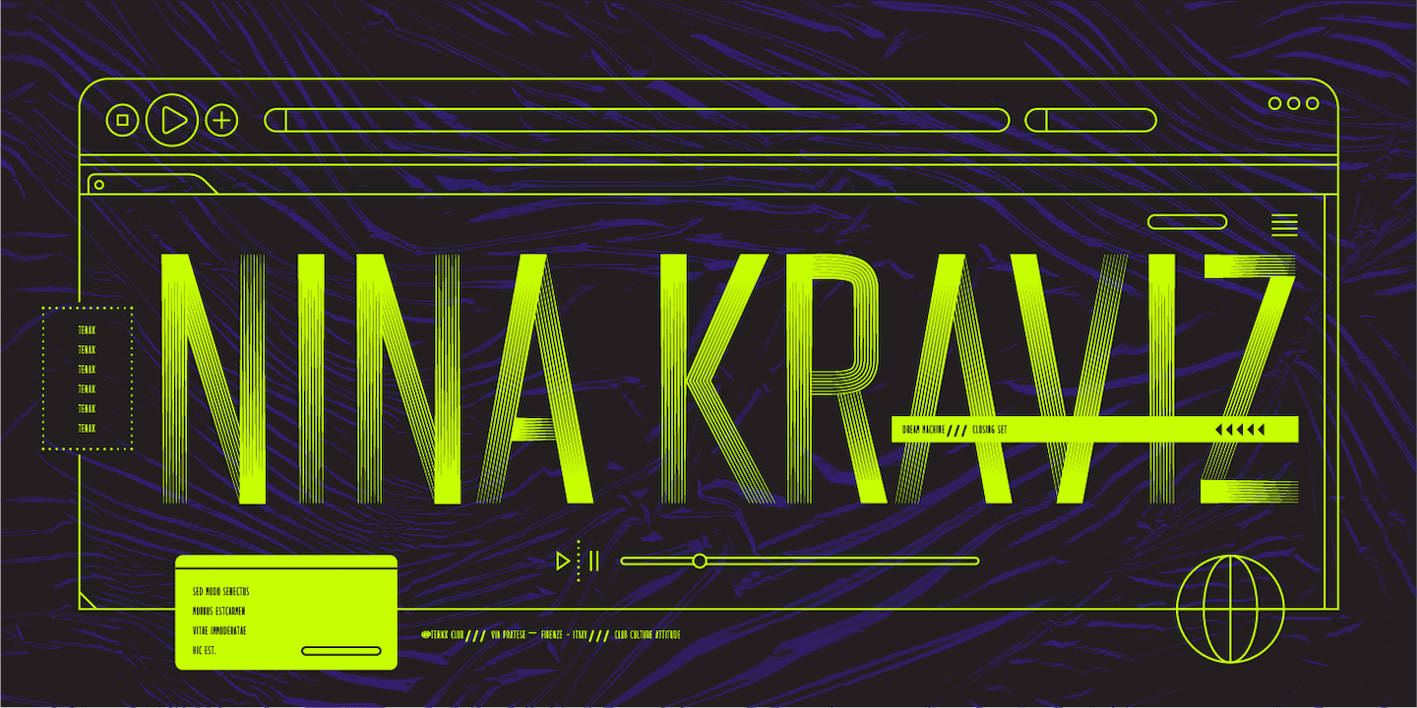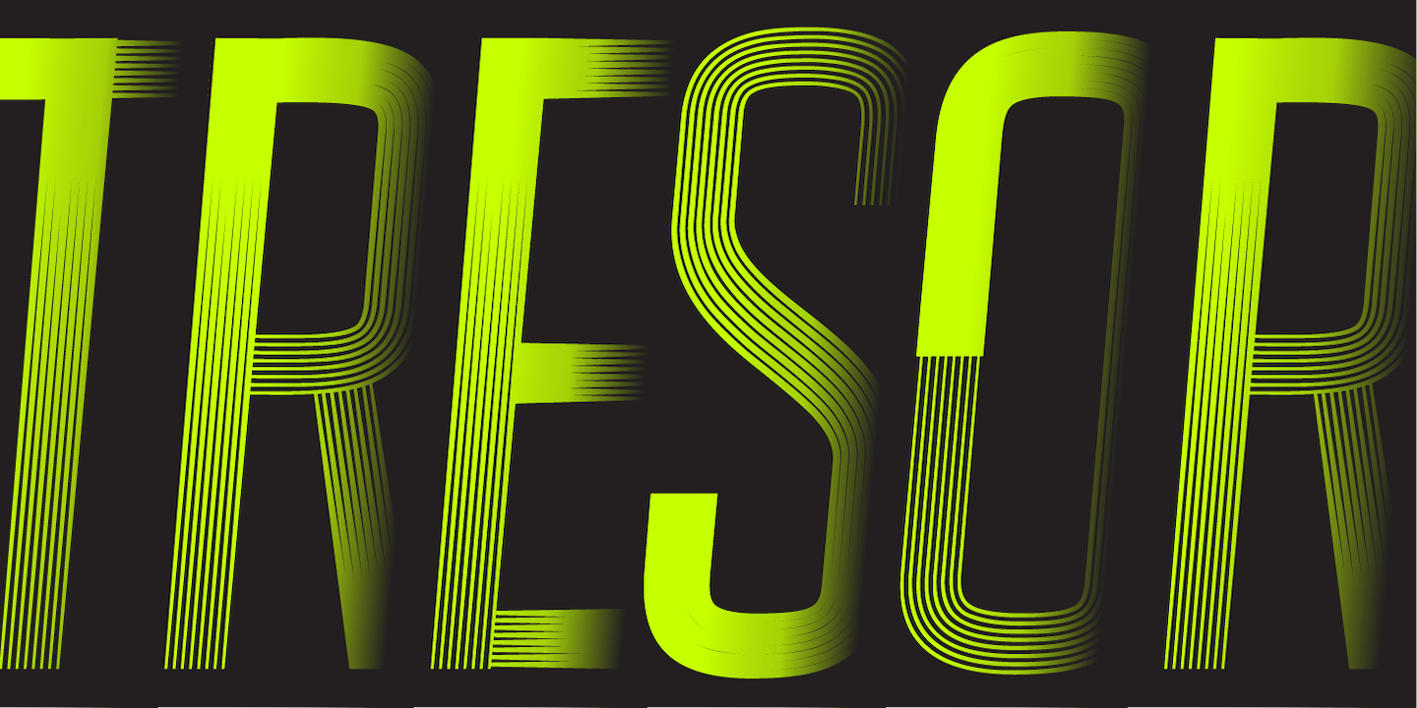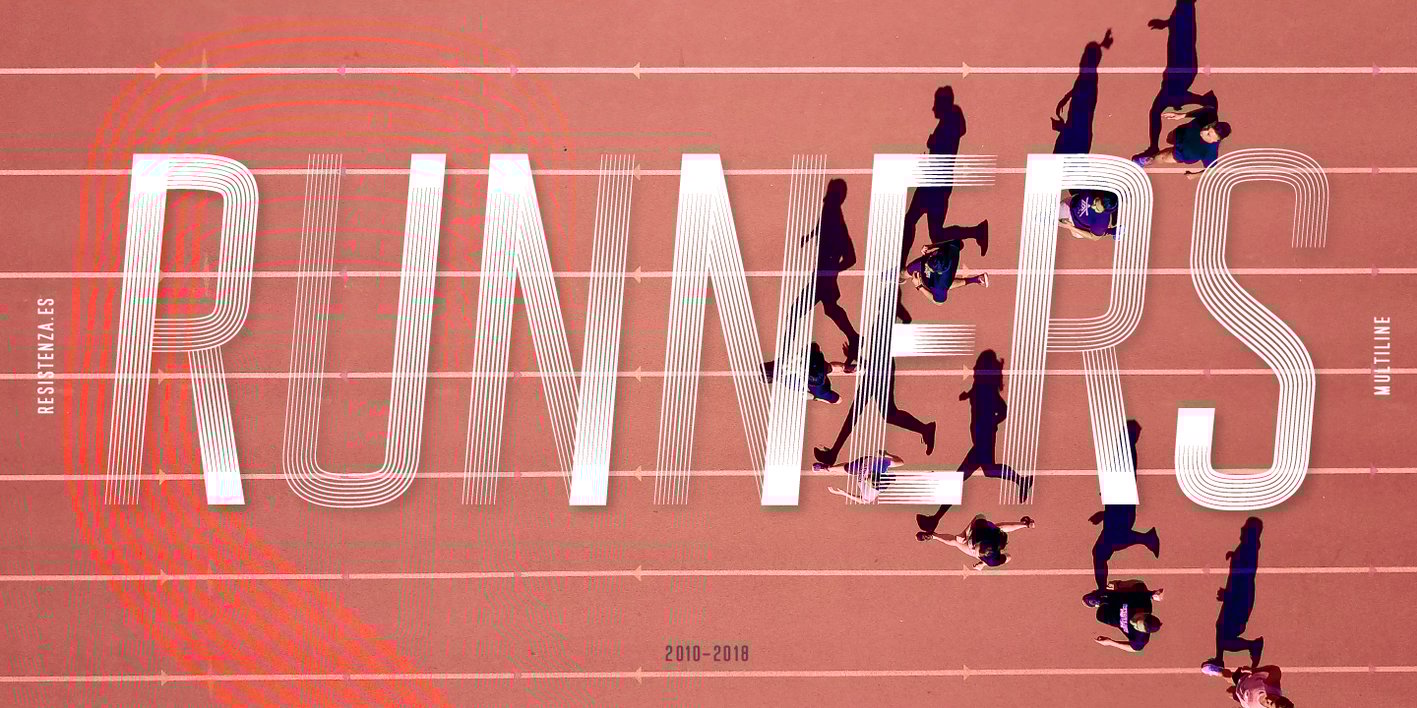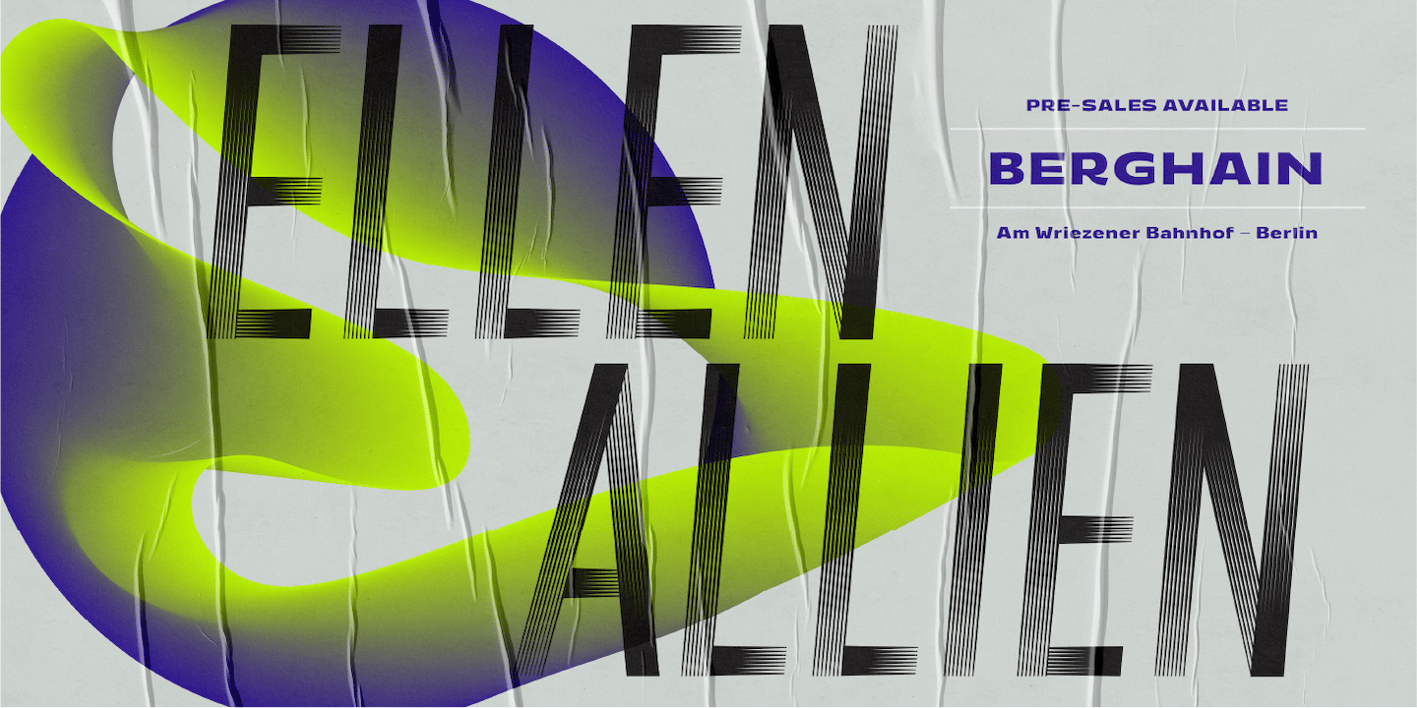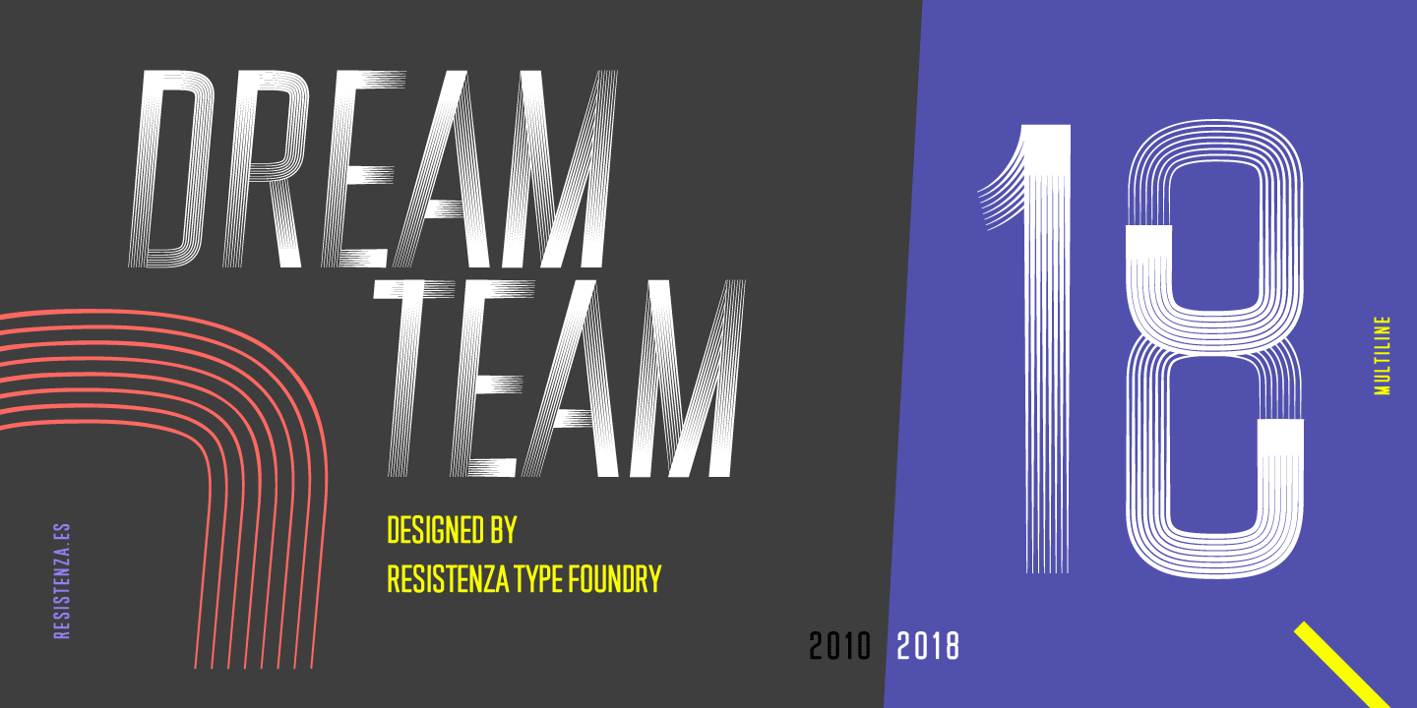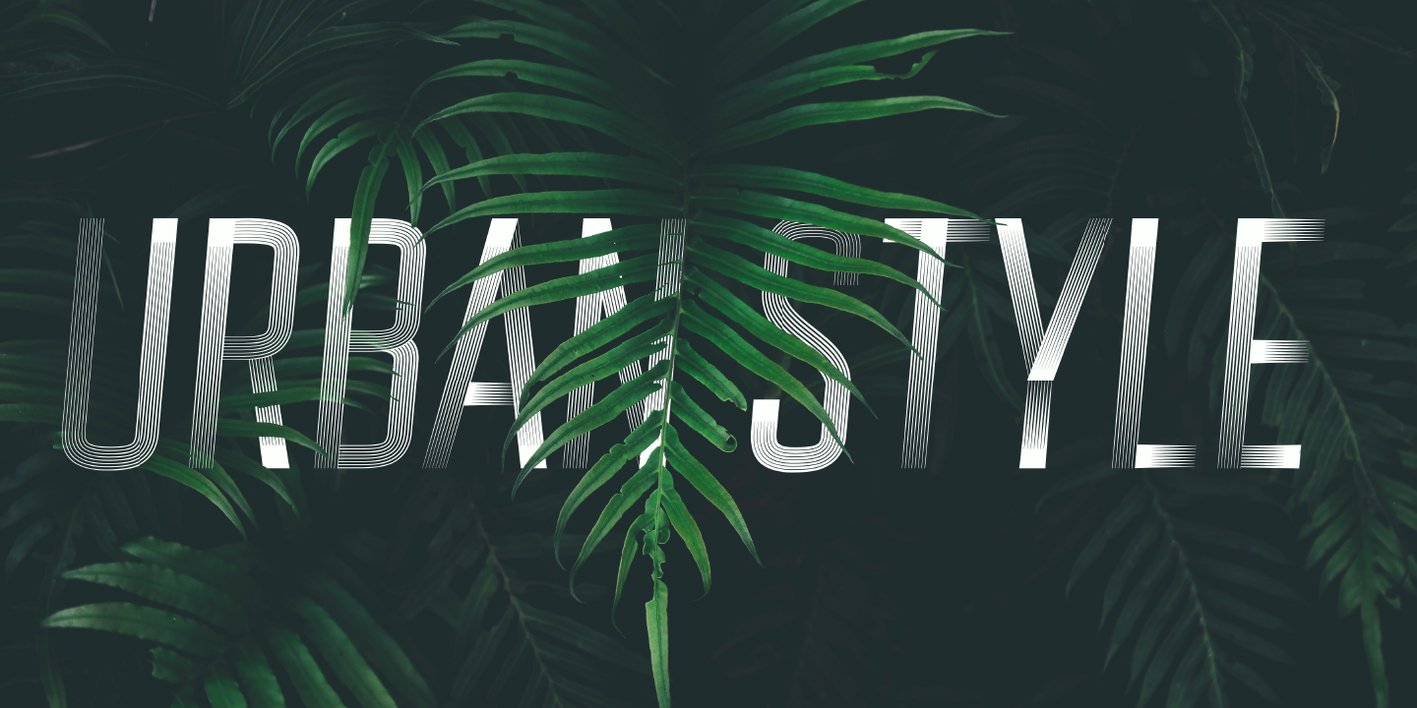
DreamTeam Font
DreamTeam Font: A Contemporary Twist on Classic Sans Serifs DreamTeam font stands at the forefront of modern typography, blending the timeless elegance of narrow flat-sided sans serifs with a contemporary twist. Inspired by the rich tradition of sign painting, these letters breathe new life into the graphic design landscape with their unique multiline strokes.